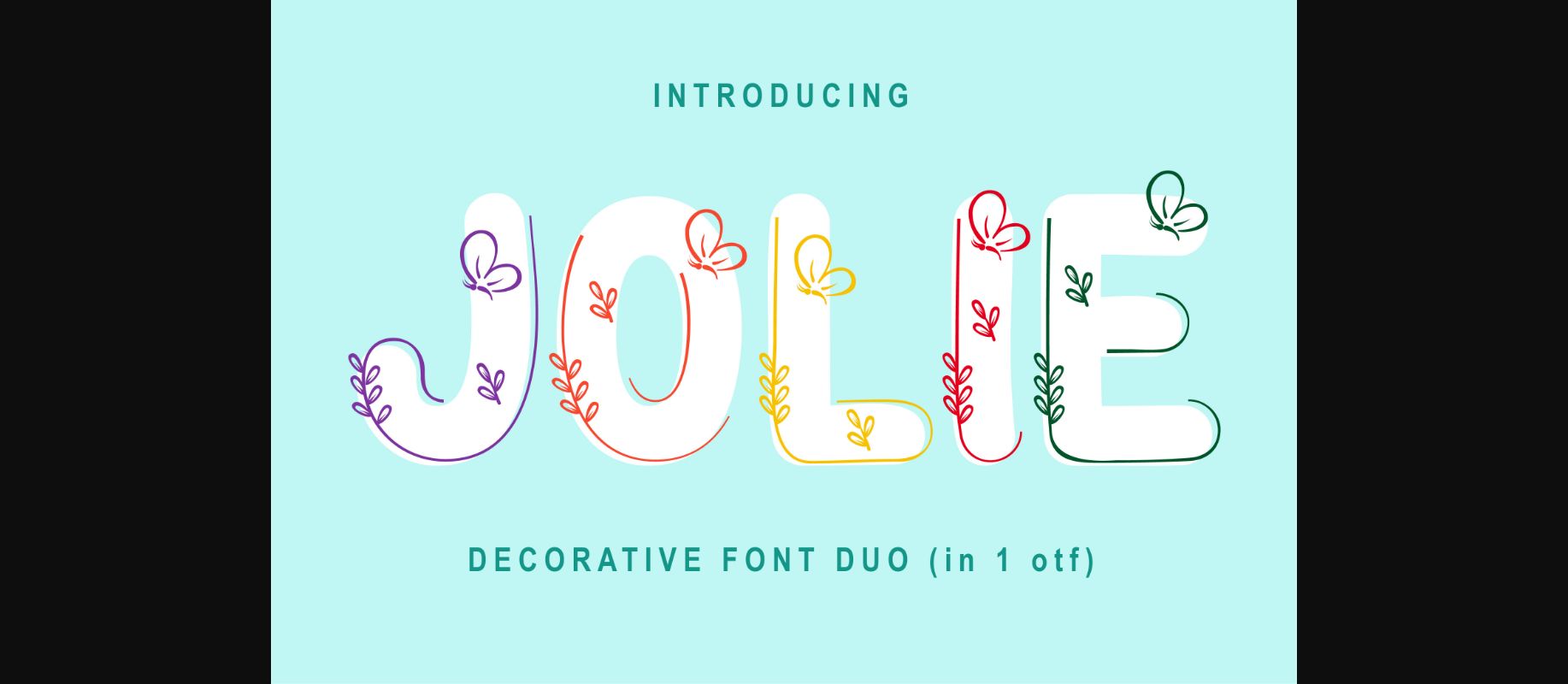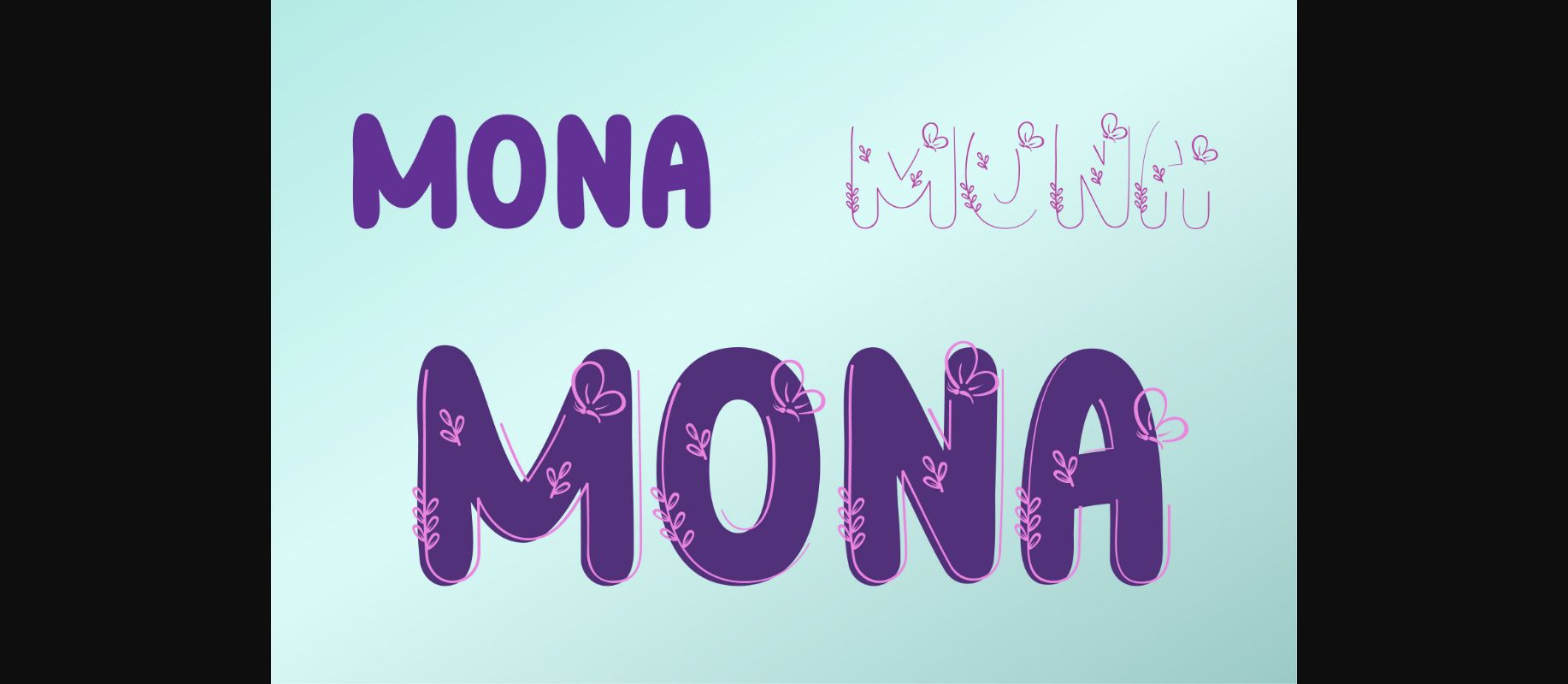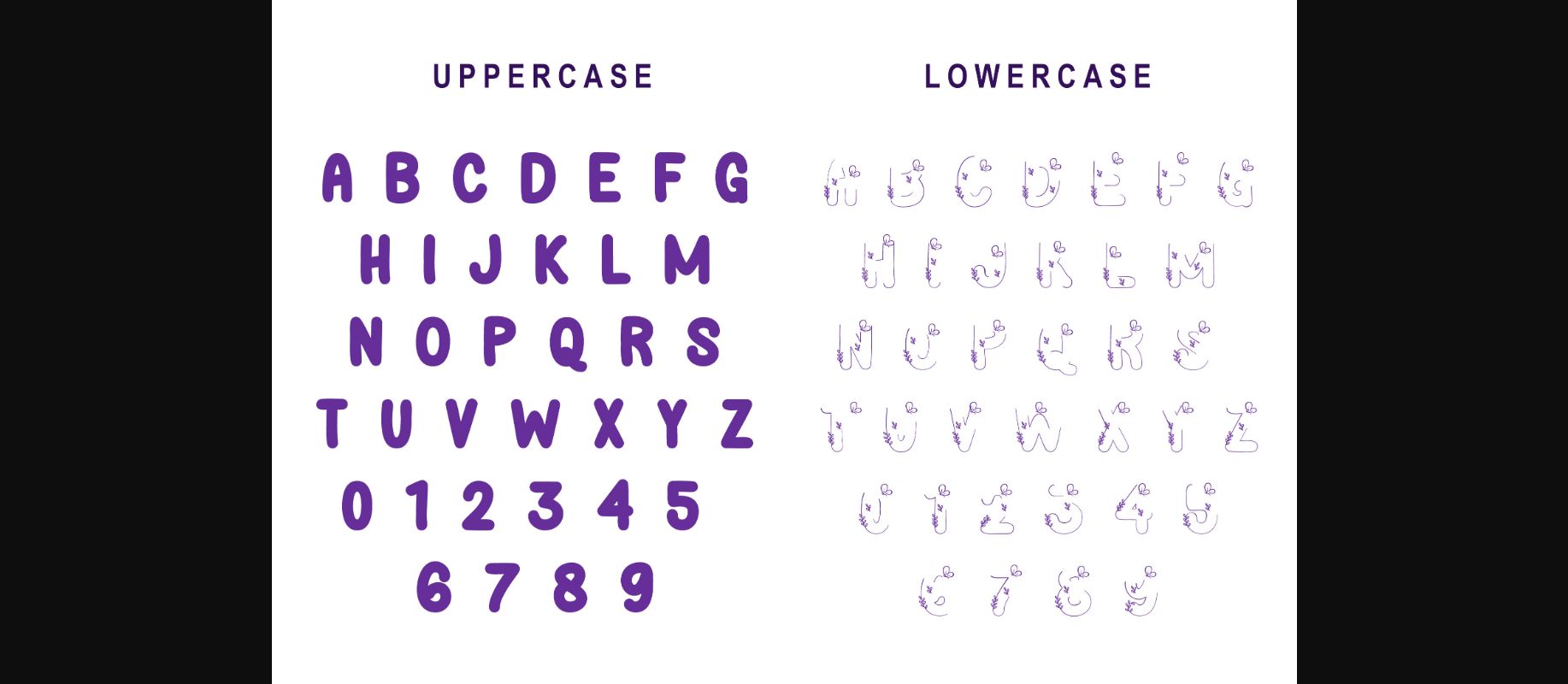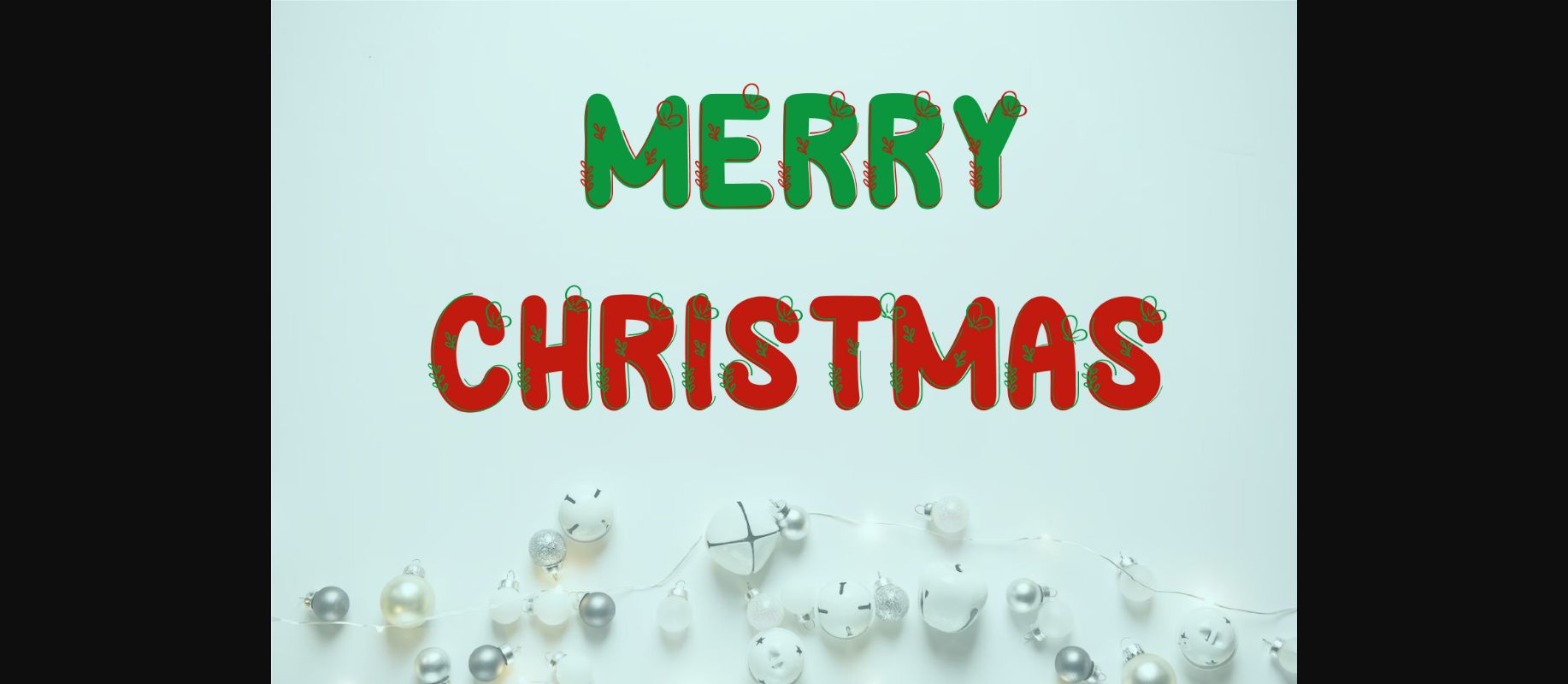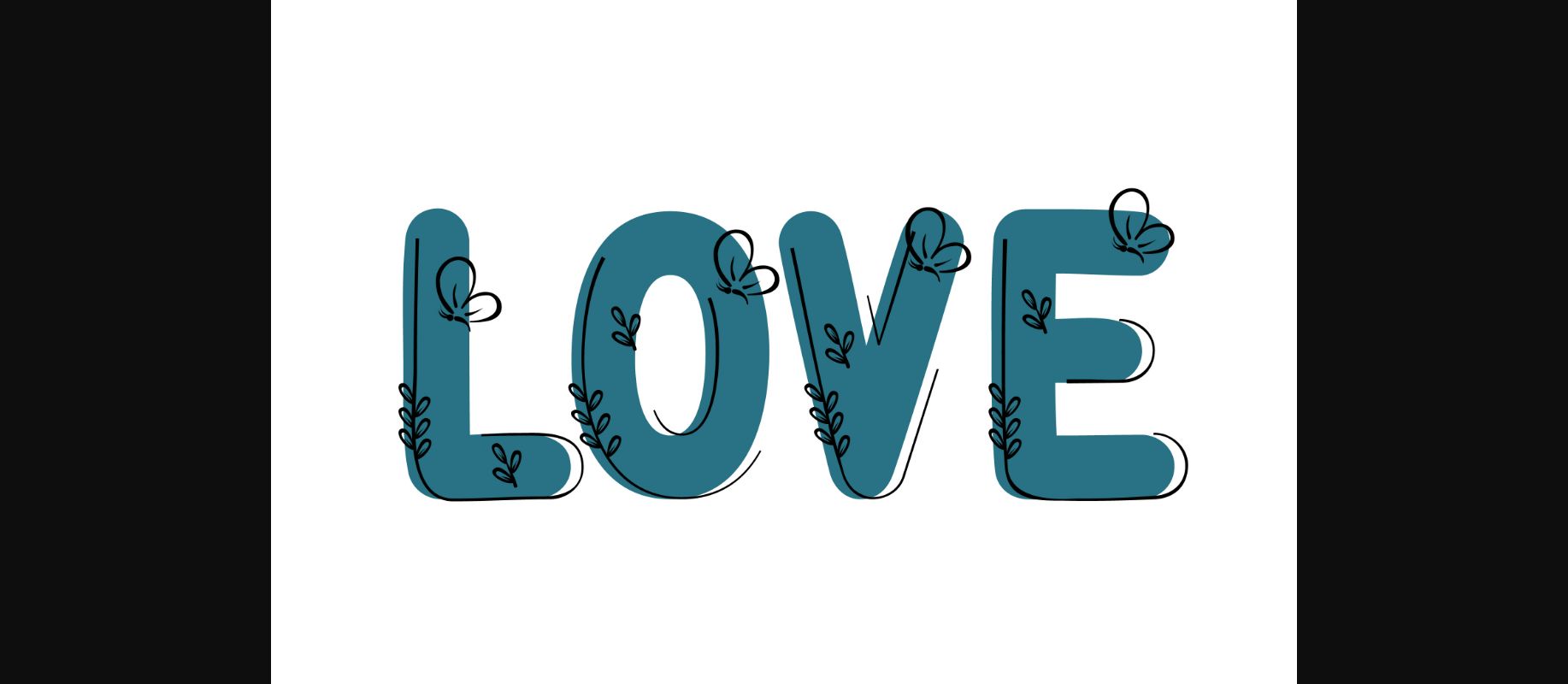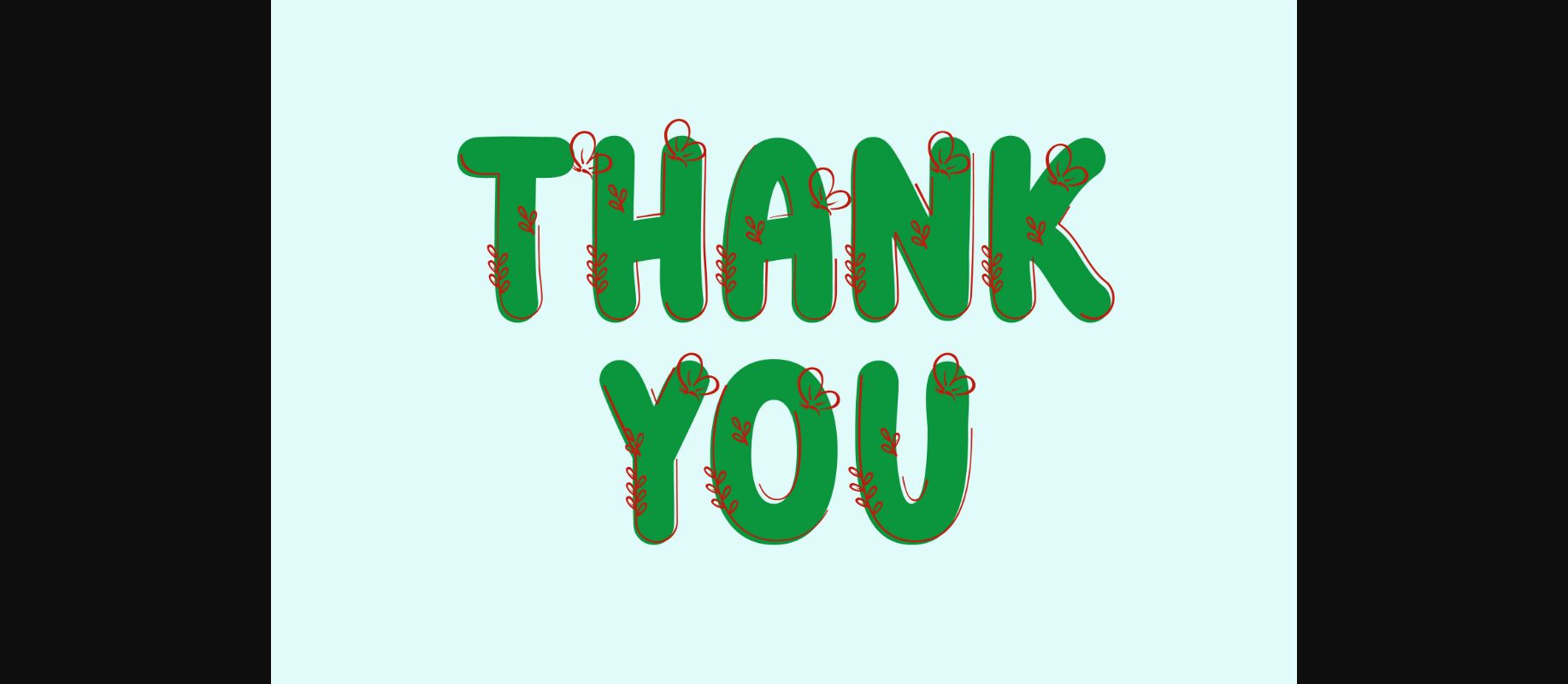
HomeDecorative FontsJolie Font Decorative Fonts Jolie Font FacebookXPinterestWhatsApp 1 of 8 ... Jolie Font Poster 2... Jolie Font Poster 3... Jolie Font Poster 4... Jolie Font Poster 5... Jolie Font Poster 6... Jolie Font Poster 7... Jolie Font Poster 8... About Jolie Font Jolie is a fun, cute decorative layered font. Use Uppercase for base font, then lowercase for cute decorative font. DOWNLOAD NOW People also explored Funwork Font Magnolia Cora Font Osgood Slab Futurette FF Font Matchbox Font Collection Rayline Swift Font Ryokan Font Besok Lusa Font Tangisan Font 315 0 TagsJolièJolie Font Previous articleLittle Star FontNext articleMy Comic Font LEAVE A REPLY Cancel reply Comment: Please enter your comment! Name:* Please enter your name here Email:* You have entered an incorrect email address! Please enter your email address here Website: Save my name, email, and website in this browser for the next time I comment. Personal Use Free Diland Personal Use Free Read more about this font Baveuse Personal Use Free Read more about this font Charletto Personal Use Free Read more about this font Turpentine Personal Use Free Read more about this font BLOG Top 10 Handwritten Fonts That Elevate Your Designs Top 10 Handwritten Fonts That Will Elevate Your Designs Handwritten fonts bring a warm, personal touch to every creative project. Whether you're designing logos, invitations,... Free Fonts Risk: Why Free Fonts Can Be Dangerous for Designers Elegant Wedding Invitation Fonts – Handwritten & Script Fonts Where to Buy American Fonts Online in 2024